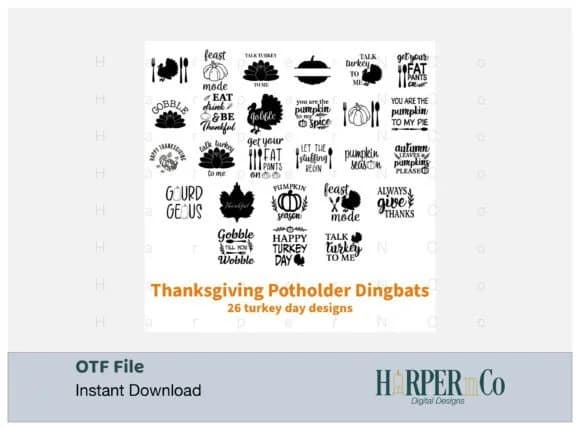
Hand-drawn dingbat forms have a warmth that mass-produced clip art can't achieve. Thanksgiving by HarperNCo captures this energy in an OTF font packed with seasonal imagery: turkeys, pumpkins, cornucopias, wheat bundles, and baked goods rendered with genuine personality rather than polish. Each character brings a sketch-like quality that reads as honest and conversational, never corporate. The weight feels approachable at any display size without losing detail.
These icons work exceptionally well for concrete seasonal projects. Create Thanksgiving menu cards where a custom turkey border frames your dinner course list. Design fall harvest product labels for farmers market goods or small-batch apple butter and preserves. Hand-lettered thank-you gift tags gain real character from the playful marks, as do autumn table place cards that set an informal, warm tone. If you freelance in food design or boutique product packaging, these forms deliver the visual warmth that generic symbols can't touch. The hand-drawn sensibility also pairs well with script fonts or rustic layouts where authenticity matters more than rigid geometry.
Thanksgiving Font
by HarperNCo